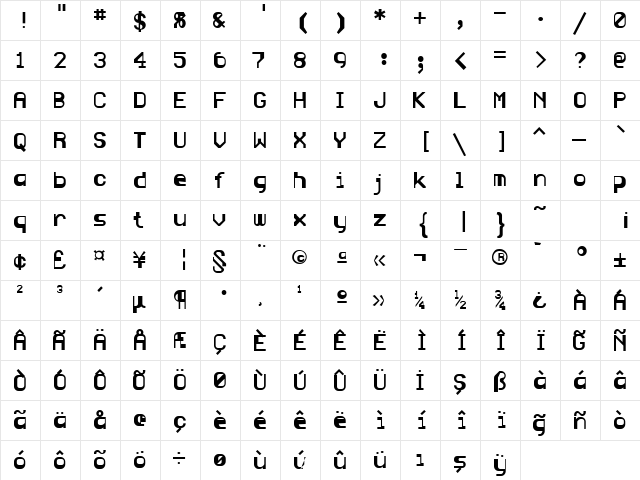
TR Blue Regular Font Preview
TR Blue Regular
Design Context for TR Blue Typeface
TR Blue is a composed and adaptable typeface that performs quietly and consistently across a wide range of design contexts.